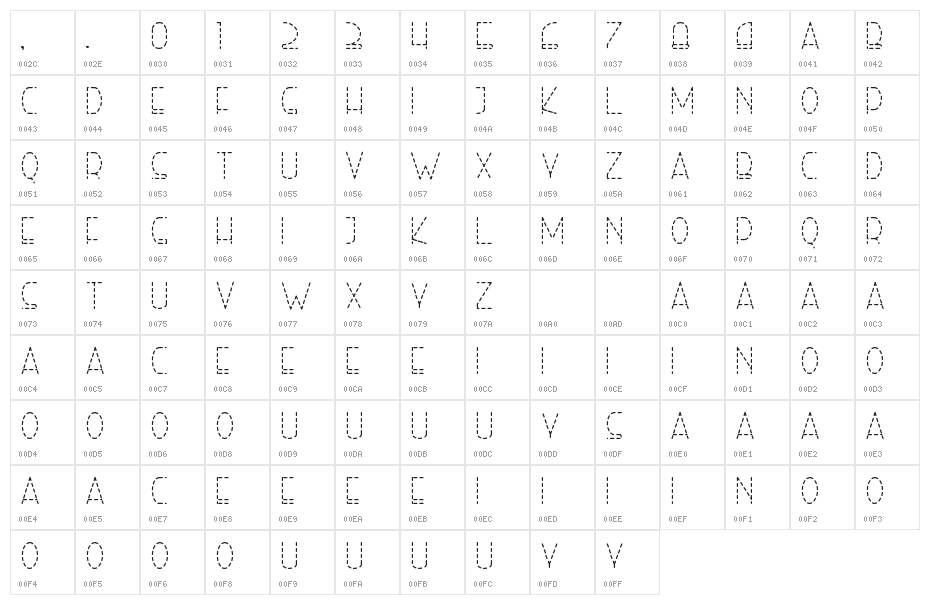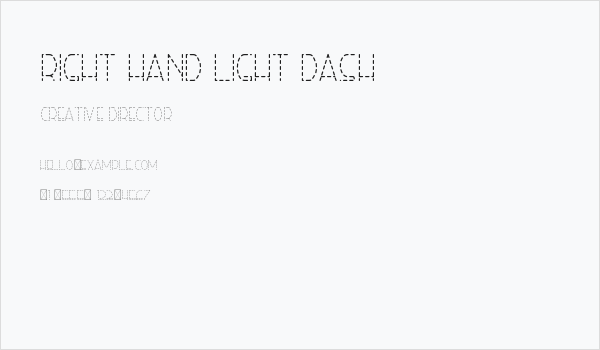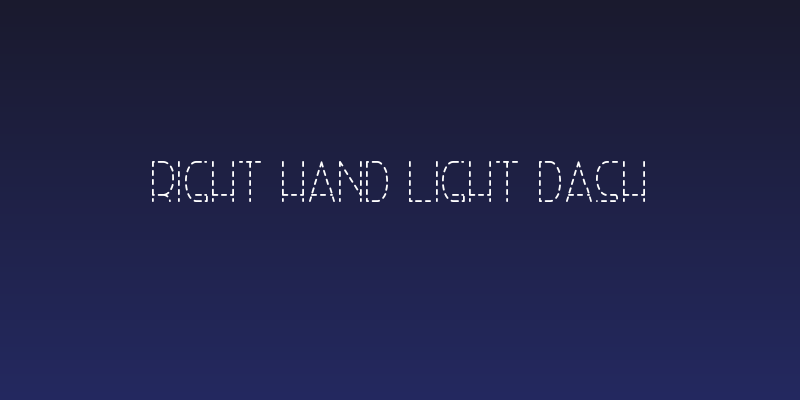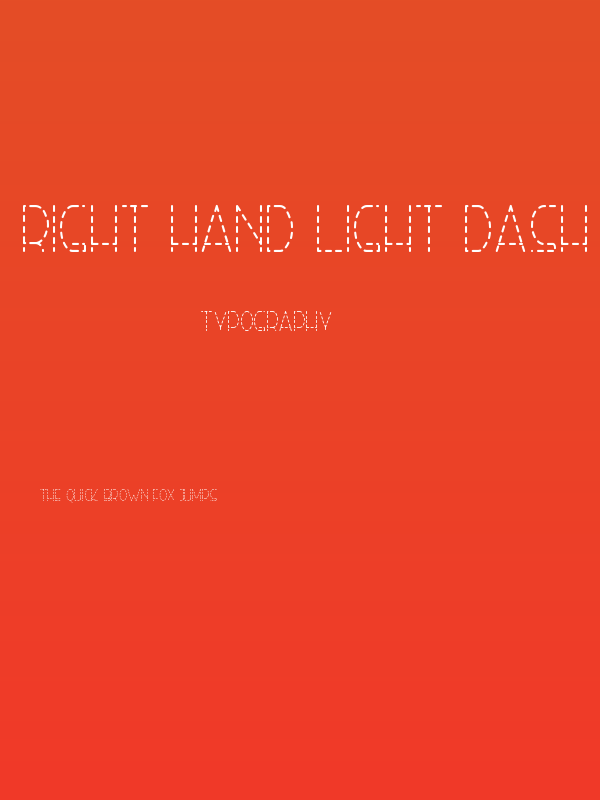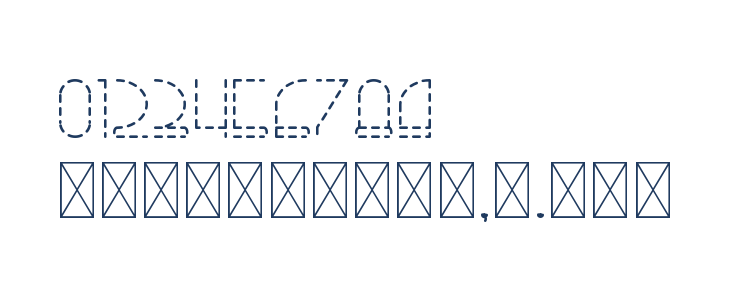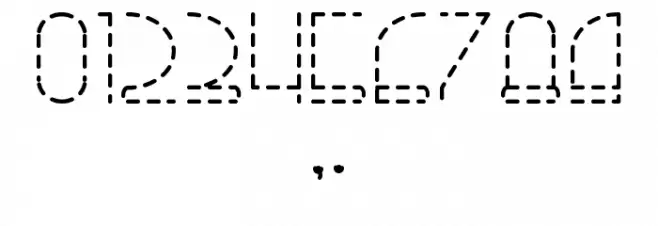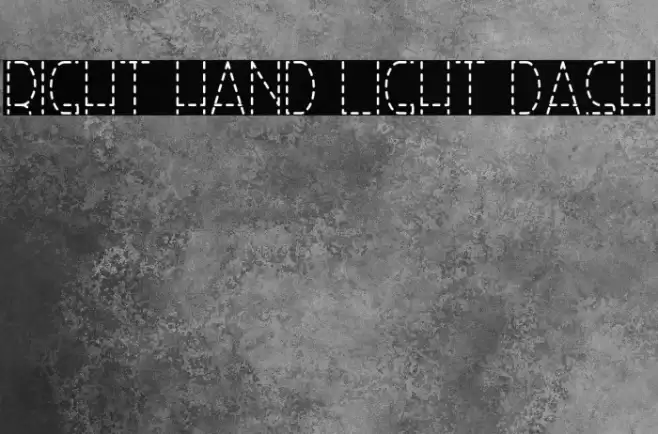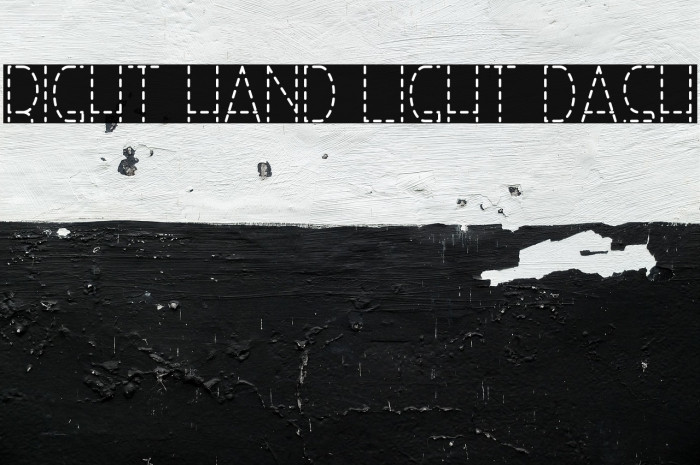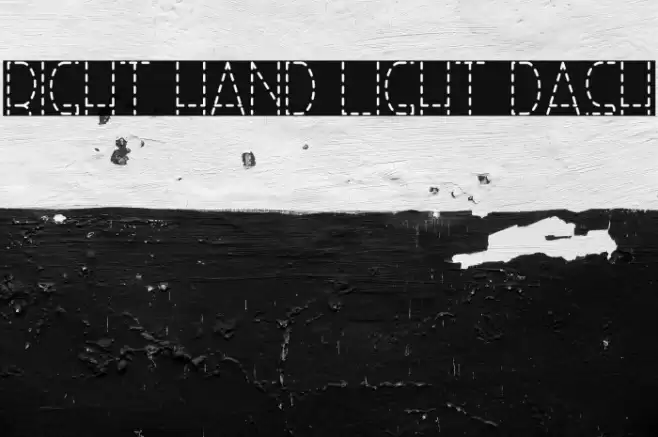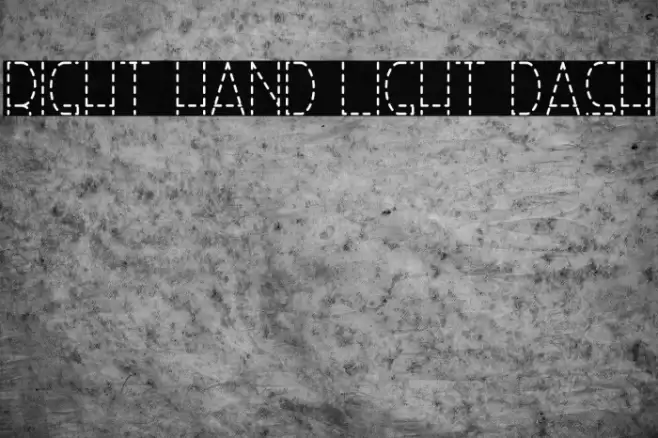
Right Hand Light Dash Font
Right Hand Light Dash Description
This font features a unique dashed line style, giving it a distinctive and modern appearance. Each character is composed of evenly spaced dashes, creating a sense of movement and rhythm. The uppercase and lowercase letters maintain a consistent height and width, ensuring readability while adding a playful touch. The numerals and special characters follow the same dashed pattern, providing a cohesive look across all elements. This font's design is both eye-catching and functional, making it suitable for a variety of creative applications.
| Use Case | Logos, Posters, Digital Graphics |
| Proposed Projects | Ideal for creative projects such as posters, logos, and digital graphics where a modern and playful aesthetic is desired. |